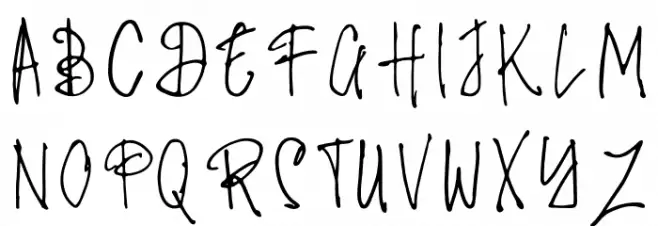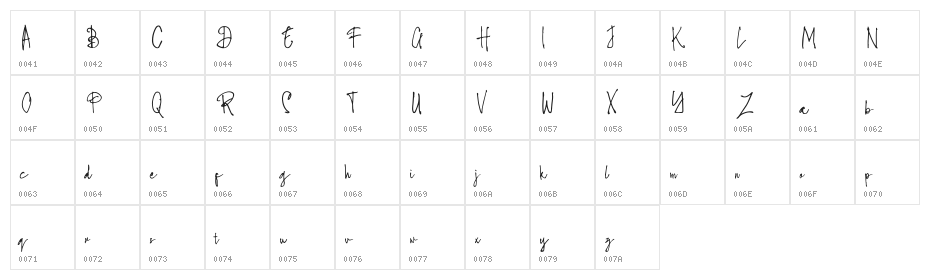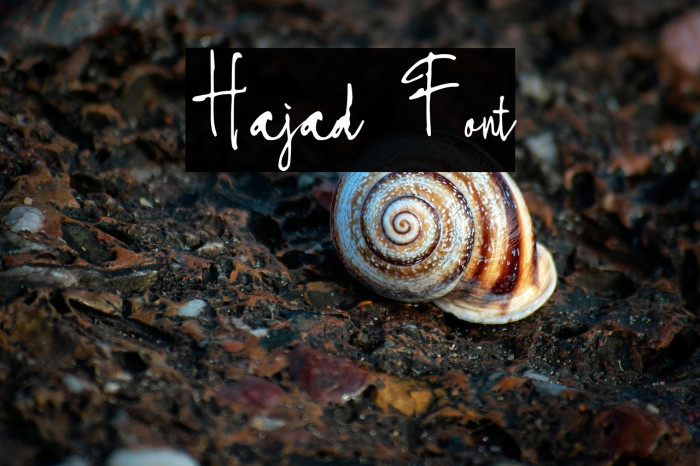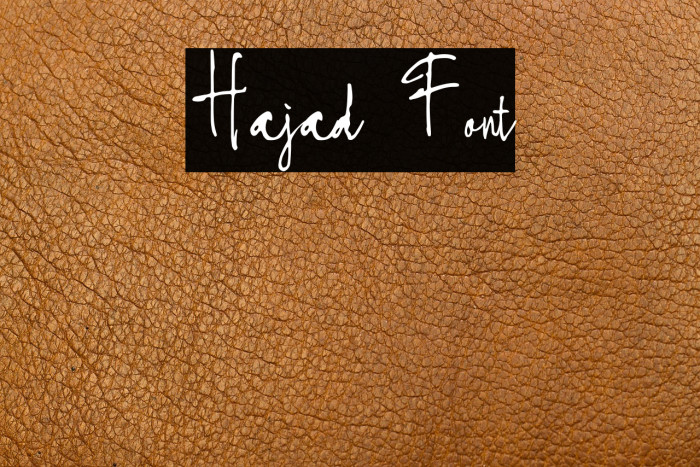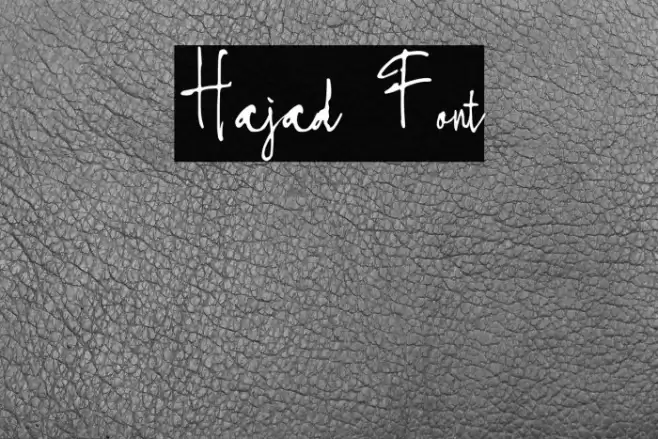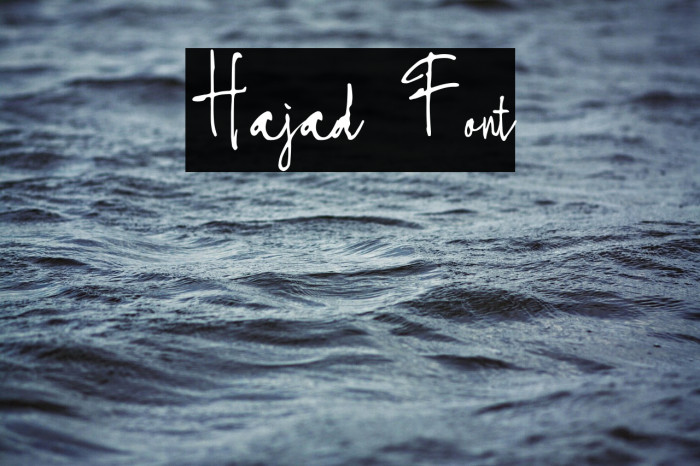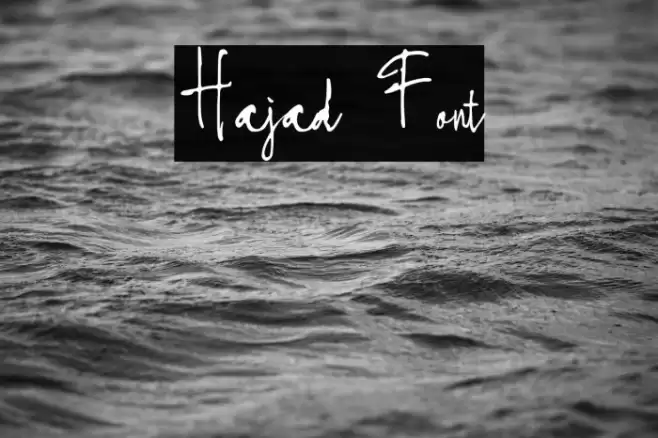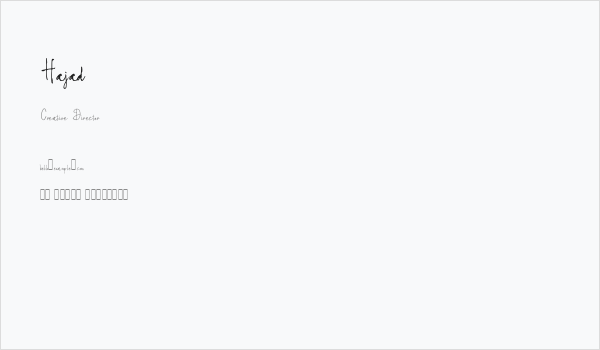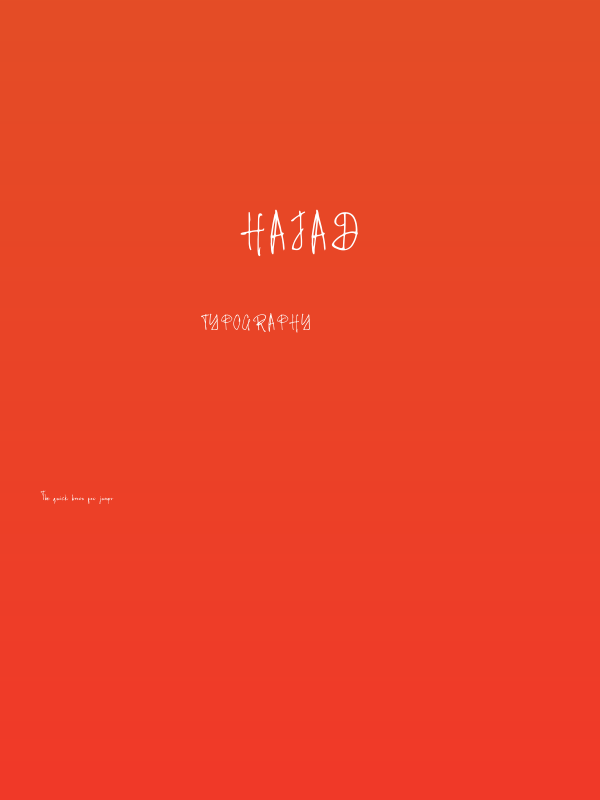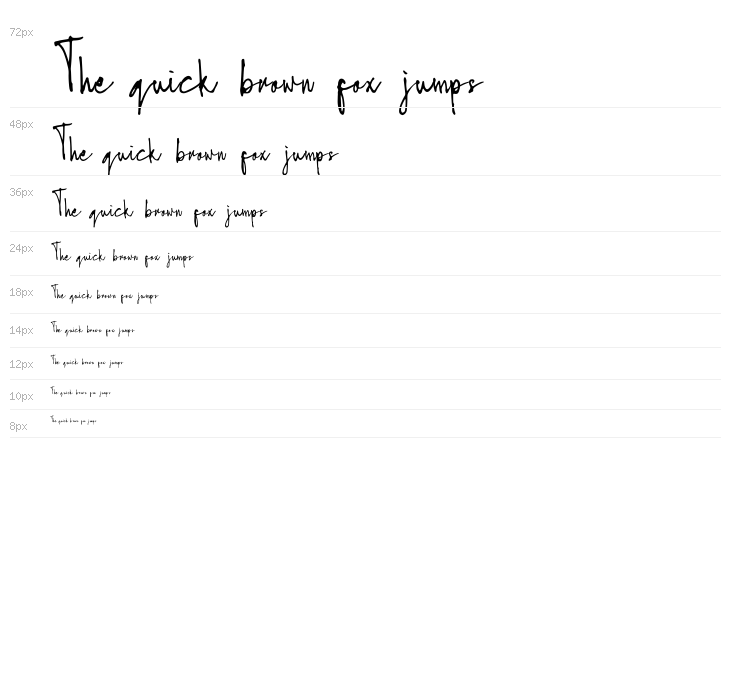
Hajad Font
Hajad Description
This font features a playful and dynamic handwritten style with a casual and artistic flair. The uppercase letters are bold and expressive, with varying stroke widths that add a sense of movement and energy. The lowercase letters maintain a consistent flow, with some letters extending slightly below the baseline, enhancing the handwritten feel. The characters are slightly slanted, contributing to the informal and relaxed appearance. This font is ideal for projects that require a personal touch, such as invitations, greeting cards, or creative branding. The overall design is both approachable and stylish, making it versatile for various applications.
| Proposed Projects | Ideal for invitations, greeting cards, creative branding, and personal projects. |